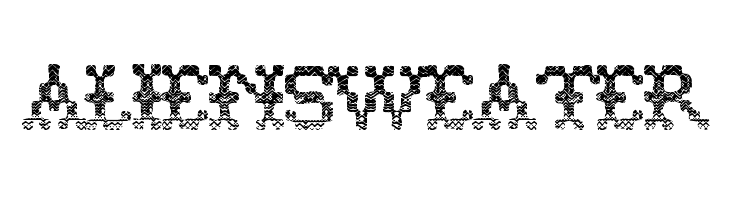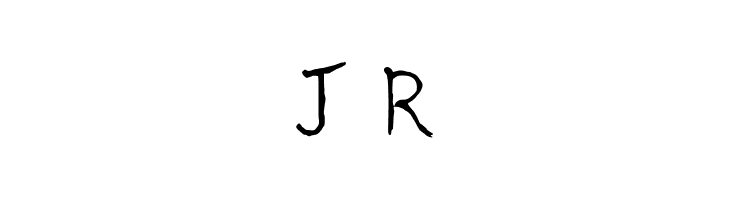
( Fonts by Mônica Paz )
A hand-drawn, rustic font with a historical and cultural aesthetic.
A bold, handwritten-style font with thick, expressive strokes.
( Fonts by Masa Aska Sanurumi )
A playful, bold, and cartoonish font with rounded strokes and a whimsical style.
A bold, geometric stencil font with angular, blocky letterforms.
A distressed, grunge-style font with a textured, aged appearance.
A dynamic and elegant script font with flowing curves and artistic flair.
A bold, wide outline italic font with a modern and dynamic style.
An elegant and flowing script font with graceful curves and sophisticated flair.
( Fonts by Typebae Foundry )
Elegant handwritten script font.
A bold, semi-condensed font with a modern and robust design.